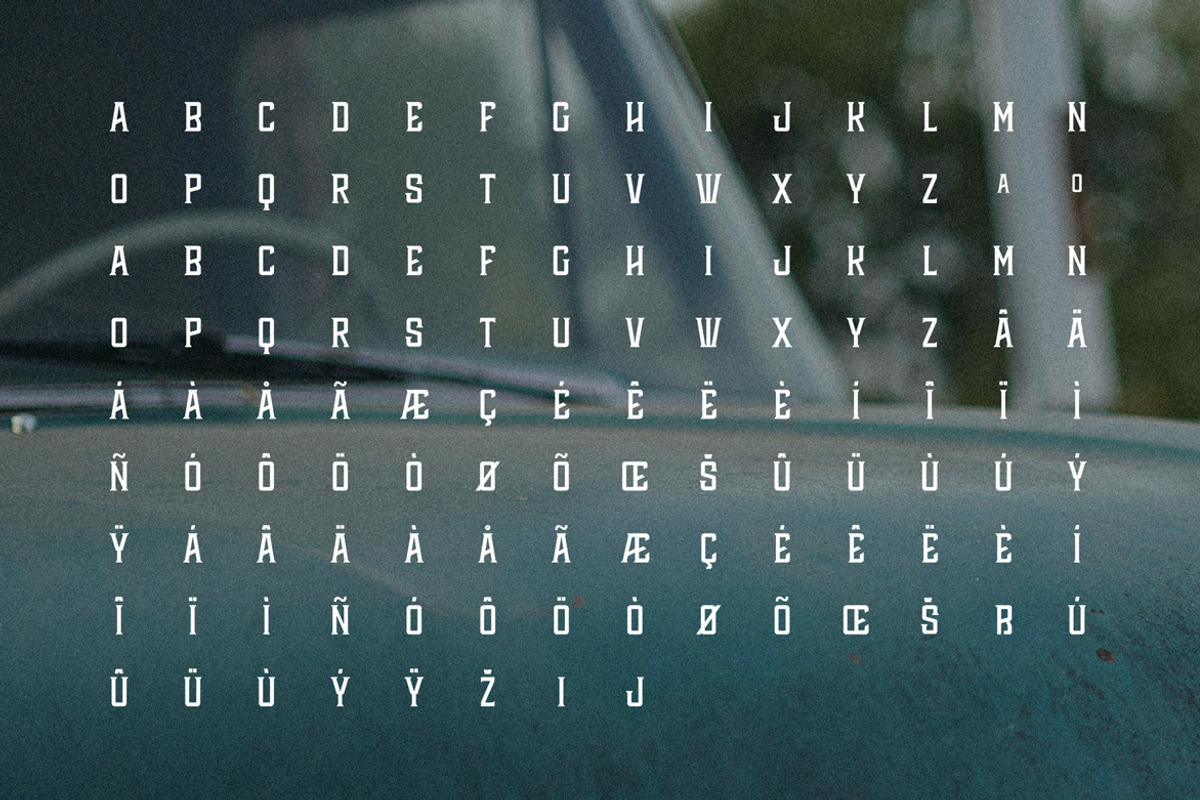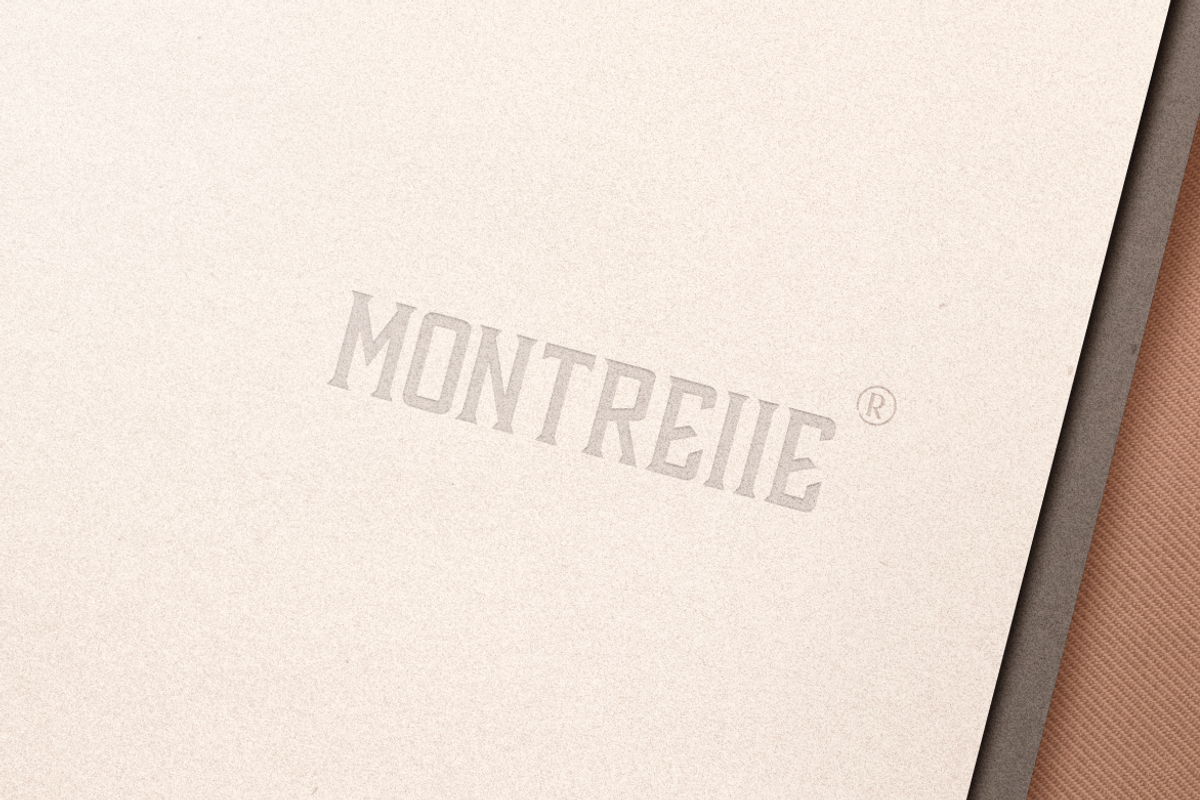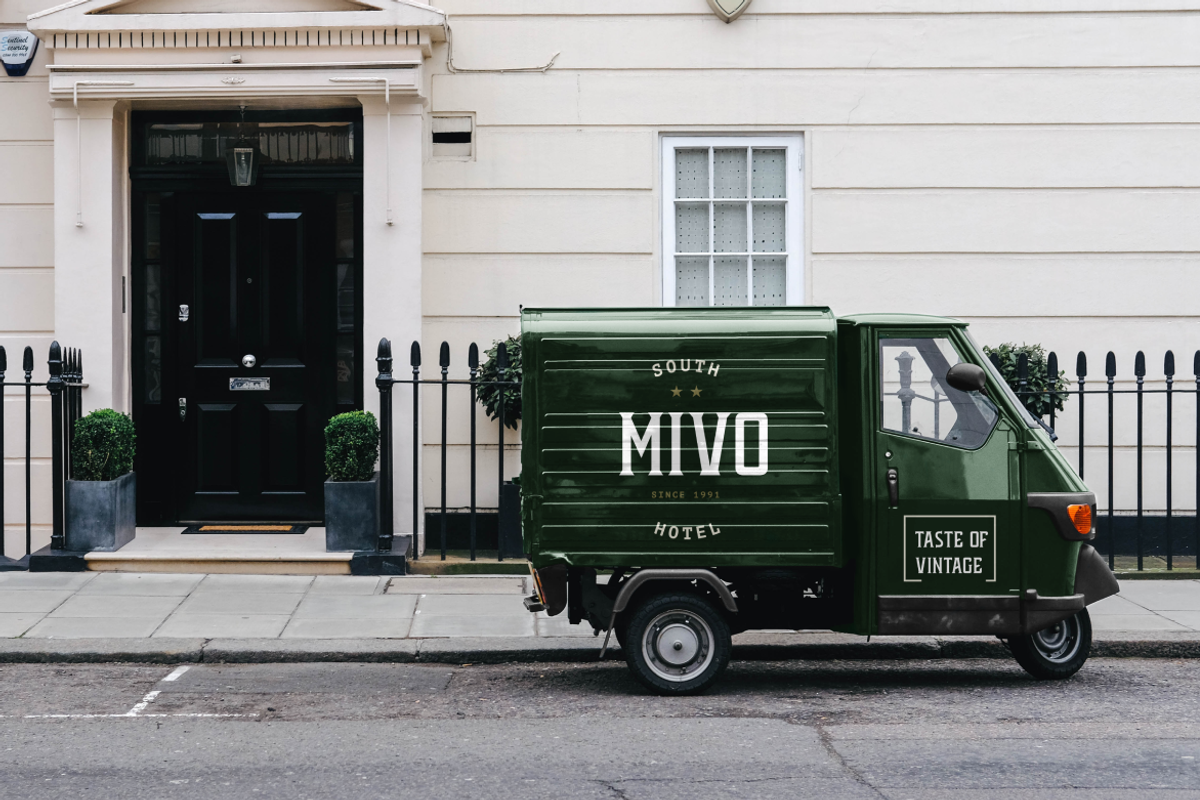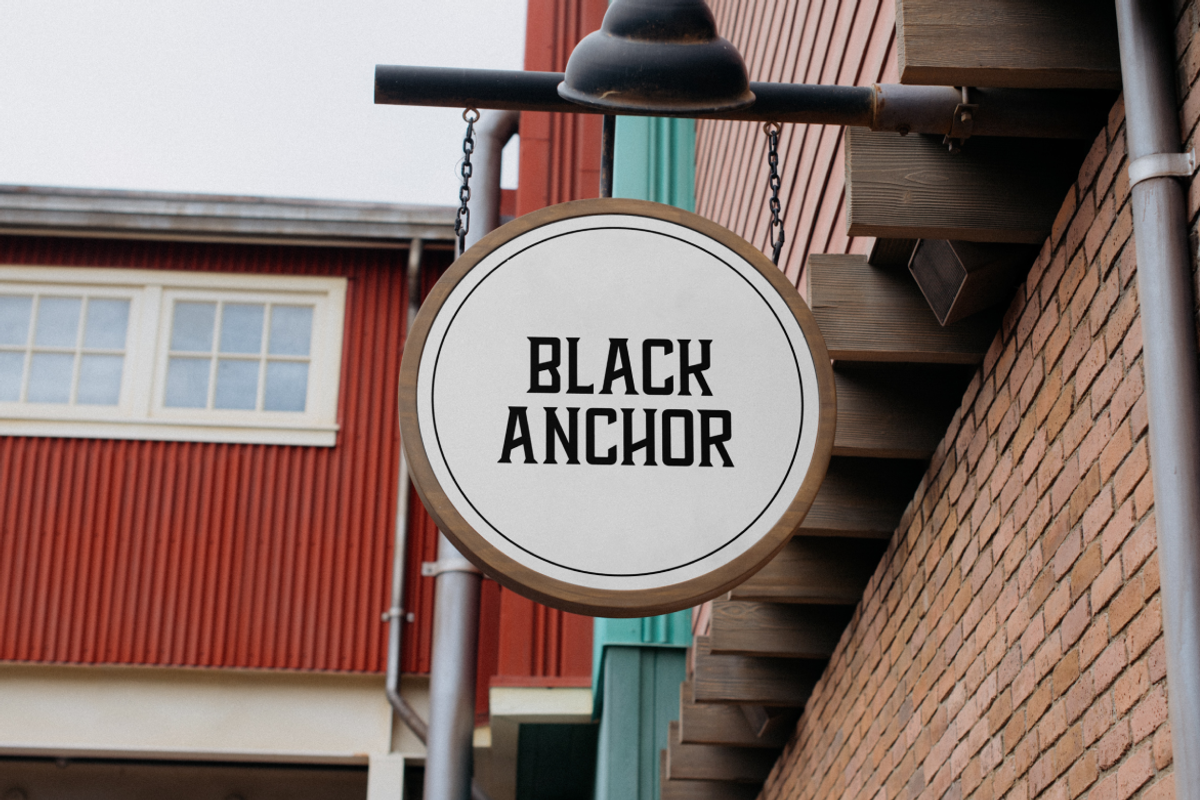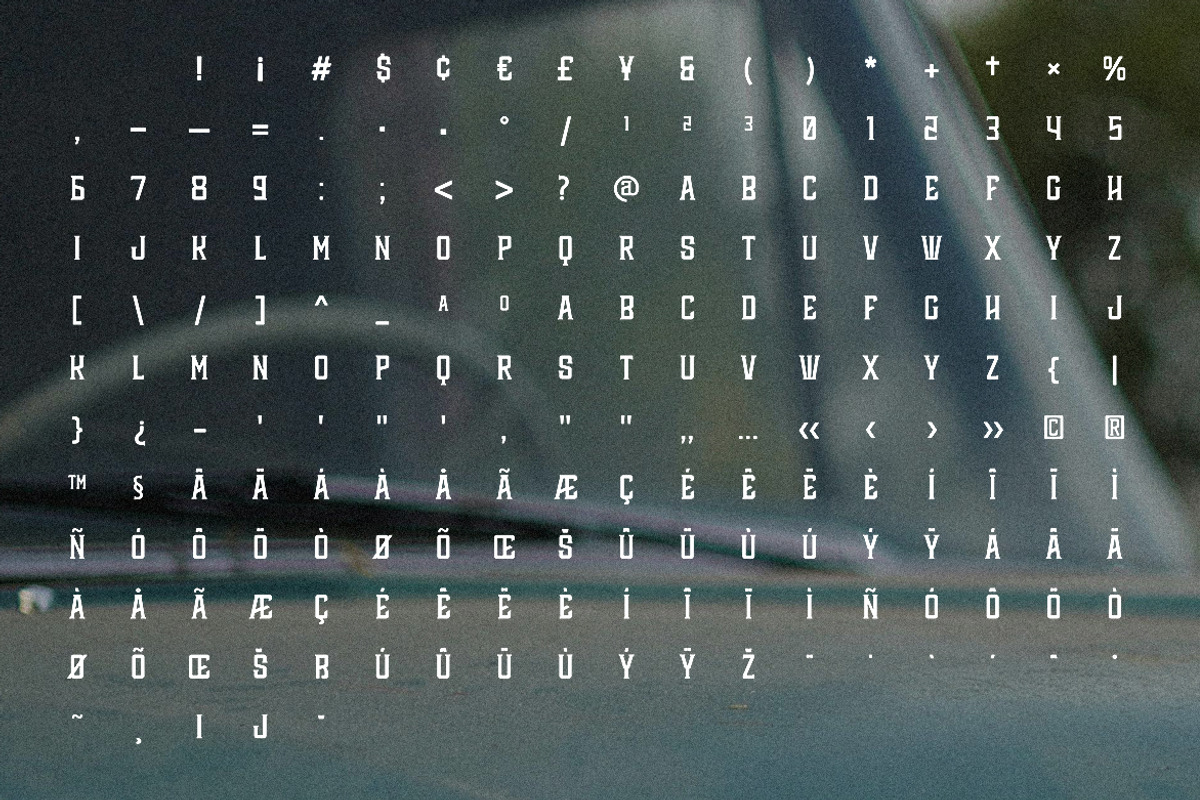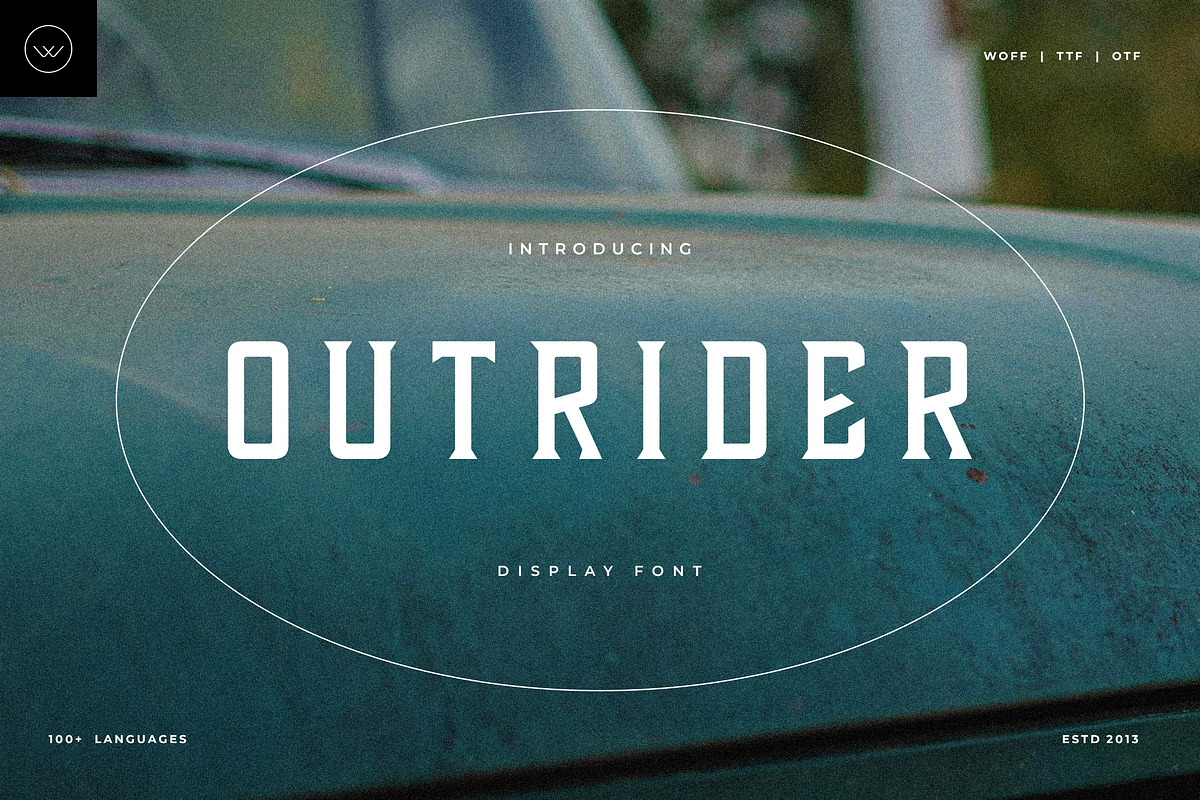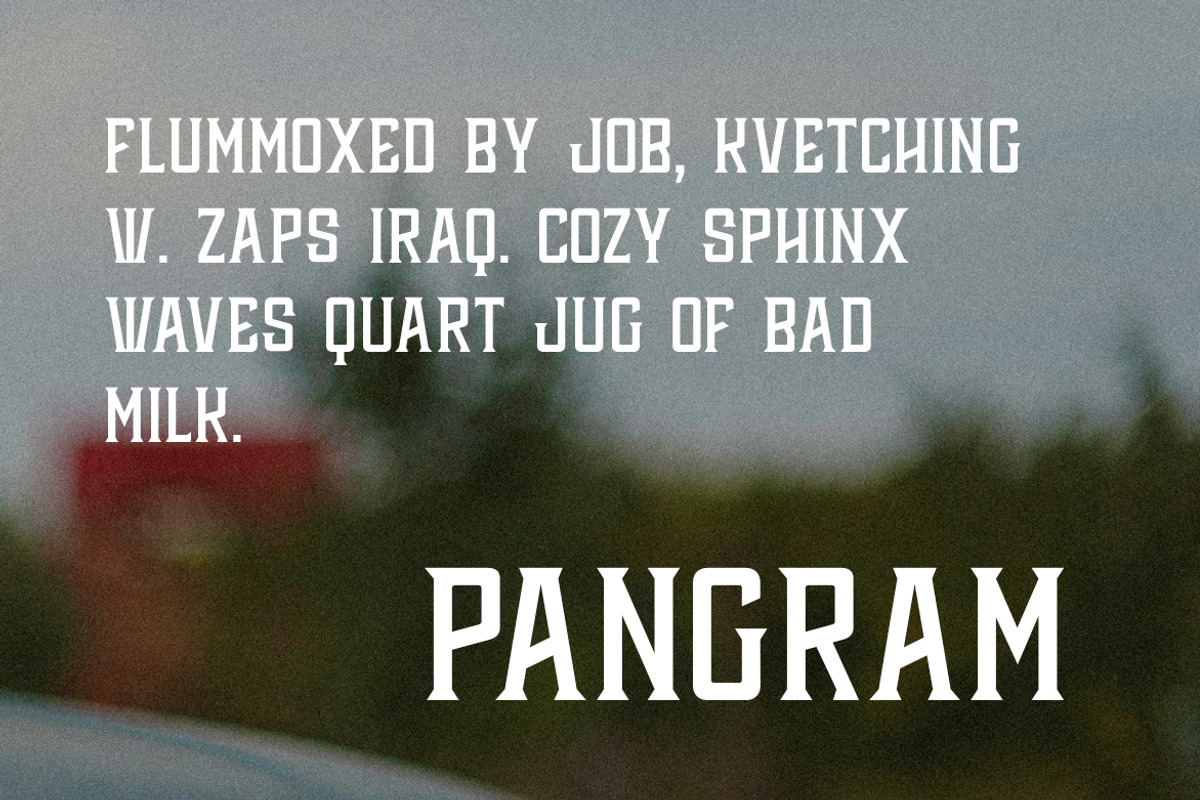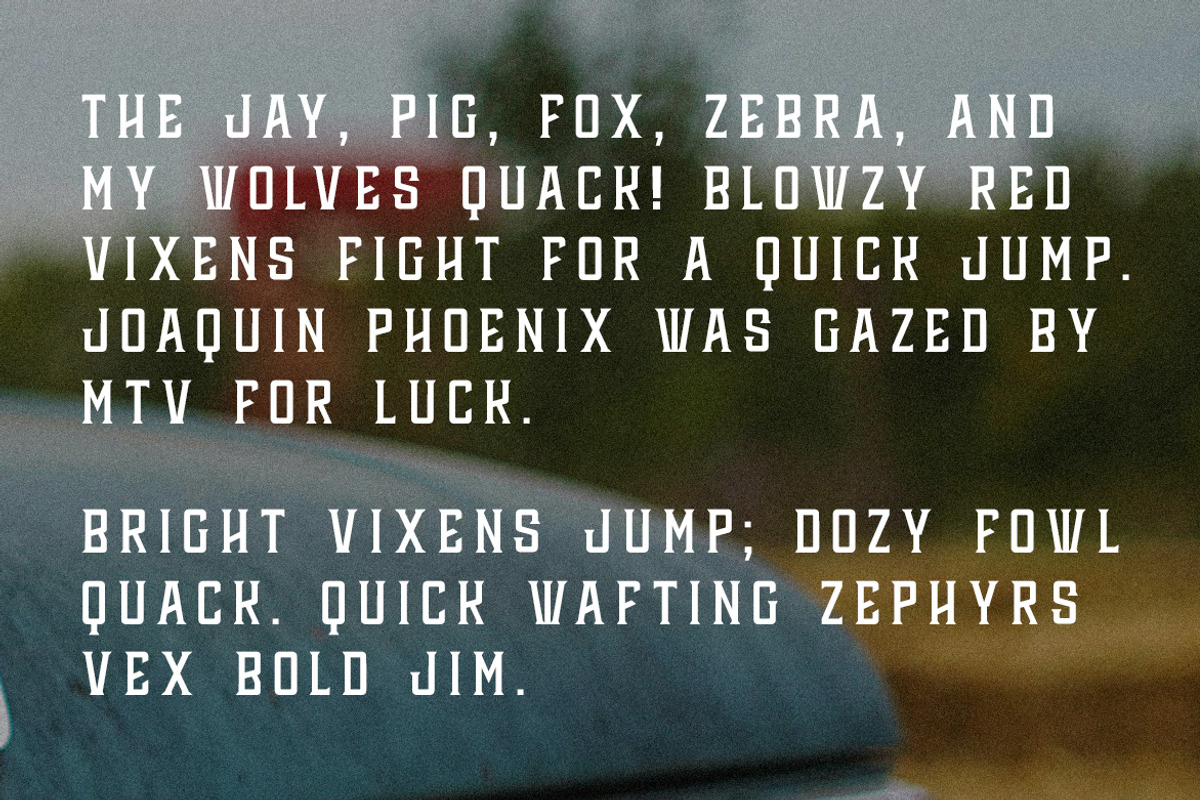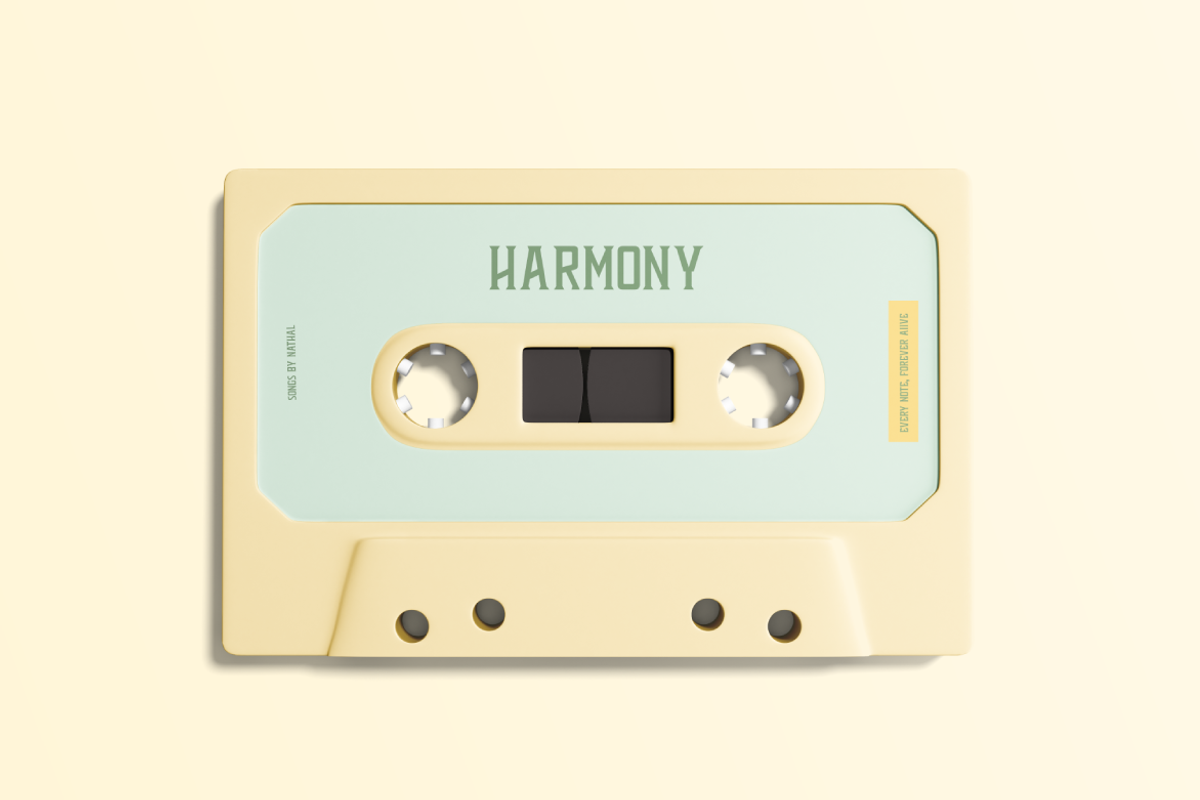
Outrider - Modern Slab Serif Display
Outrider is a bold display slab serif typeface inspired by the rugged spirit of the frontier and the timeless charm of handcrafted lettering. With its strong vertical forms, sharp serifs, and geometric precision, Outrider blends industrial strength with modern sophistication. perfect for logos, posters, packaging, and branding that demand confidence and character.
Designed to evoke the grit and determination of vintage Americana, Outrider captures the essence of western heritage while maintaining a clean, contemporary look. Its carefully balanced proportions and striking letterforms make it ideal for outdoor branding, apparel design, film titles, or any project seeking bold authenticity.
Outrider supports over 100 languages and includes a complete set of uppercase letters, numerals, punctuation, and multilingual accents. Available in OTF, TTF, and WOFF formats, it delivers crisp readability both in print and on screen.
Whether you’re designing adventure-inspired branding, crafting modern vintage posters, or developing bold editorial layouts, Outrider stands as a testament to strength, legacy, and modern craftsmanship.
Multilingual Font
Uppercase letters
200+ Glyphs
Punctuations